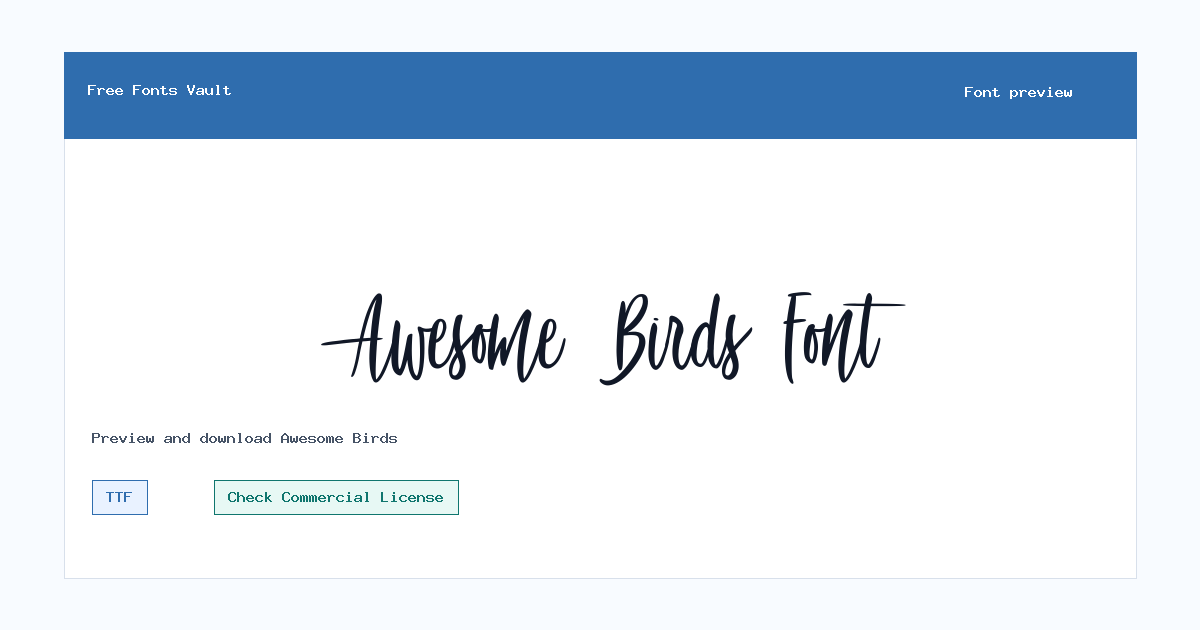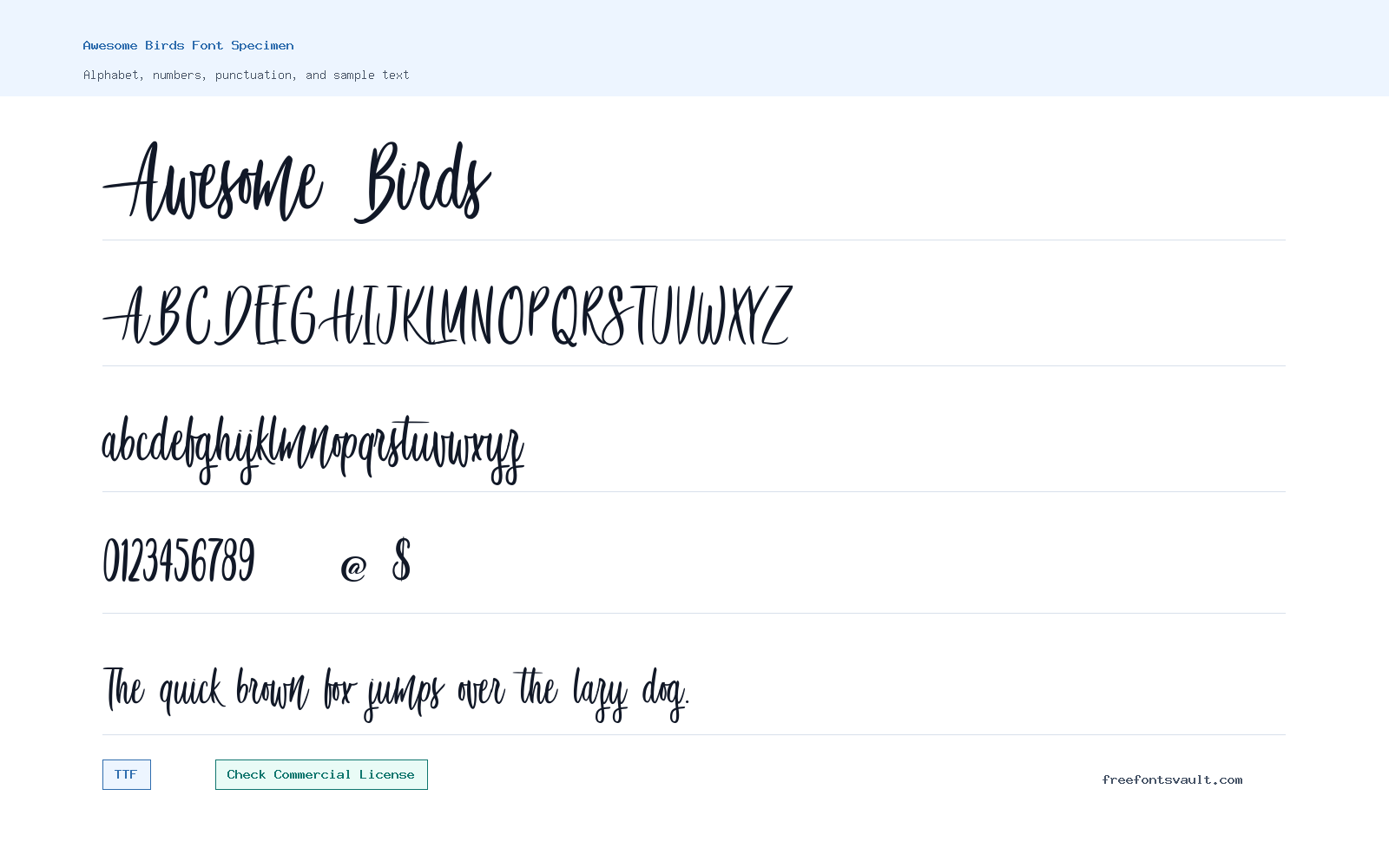
Awesome Birds
- Designer Typhoon Type - Suthi Srisopha
- Foundry Typhoon Type - Suthi Srisopha
Awesome Birds font.
Awesome Birds is a handwritten script font with tall, narrow letters, quick brush-like strokes, and a casual rhythm. It works best when you need expressive lettering for short text rather than long reading copy.
About Awesome Birds Font
Awesome Birds has a loose hand-drawn look, with slim upright forms, uneven movement, and extended strokes that give words a lively handwritten feel. The uppercase letters are decorative and compact, while the lowercase set keeps a connected, marker-like flow. Because the shapes are narrow and energetic, the font is strongest in names, short phrases, and display settings where the letters have room to breathe.
Use the preview tool to test your exact wording before downloading. Some letters sit close together, so spacing can matter in logos, invitations, quote graphics, and social posts. Keep it large enough for the thin strokes to stay clear, especially on mobile screens or busy backgrounds. For longer text, pair it with a plain sans serif or simple serif so Awesome Birds can stay as the accent font.
- Handwritten script style with thin brush-like strokes
- Short quotes, names, and personal graphics
- Invitations, social posts, labels, and decorative headings
Try the font at headline size first, then check letter spacing and readability in your design. It is better for a few expressive words than for paragraphs, small captions, or dense layouts. Awesome Birds should be tested with short, expressive wording first. Decorative fonts can look strong in a sample but feel different once the exact brand name, event title, or quote is entered. Use larger sizes, generous spacing, and simple backgrounds so the letter shapes stay clear. If you need several lines of information, let Awesome Birds handle the main phrase and move the details into a calmer companion font. Also check the first and last letters of the exact phrase. Decorative starts and endings can affect how balanced the title feels.
What kind of font is Awesome Birds?
It is a handwritten script-style font with slim brush-like strokes and a casual display look.
Who designed Awesome Birds?
The font is credited to Typhoon Type – Suthi Srisopha.
Where does Awesome Birds work best?
Use it for short decorative text such as names, quotes, invitations, social graphics, labels, and headings. Avoid using it for long paragraphs.